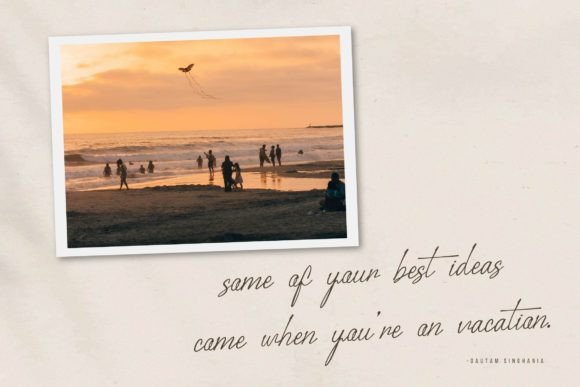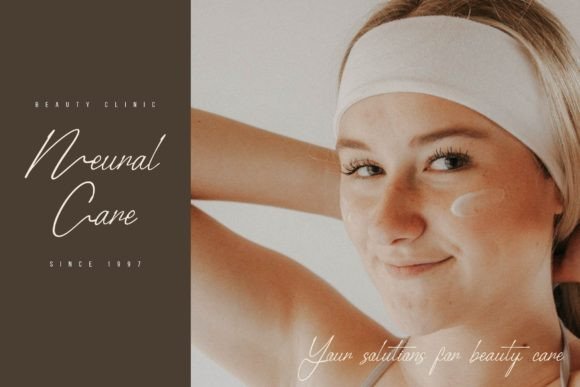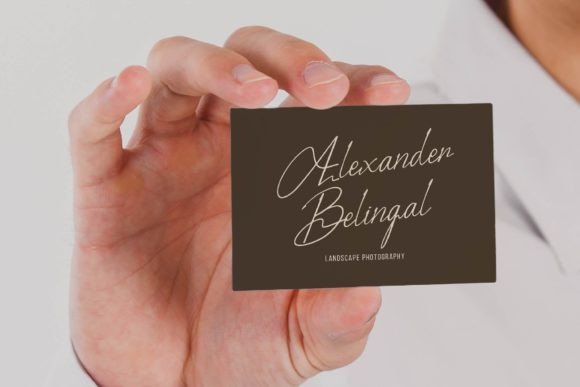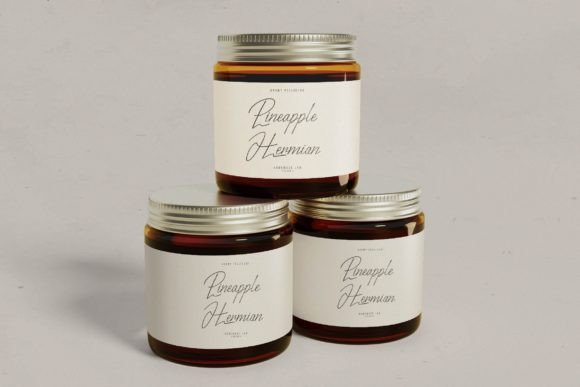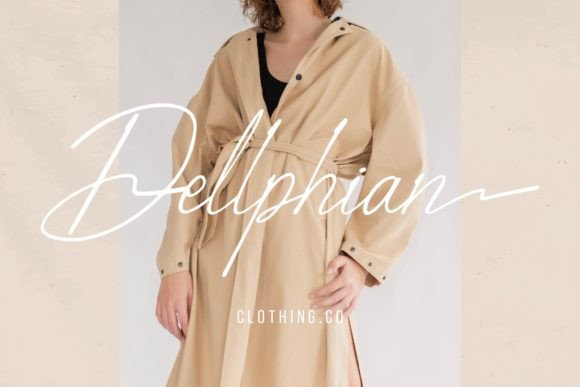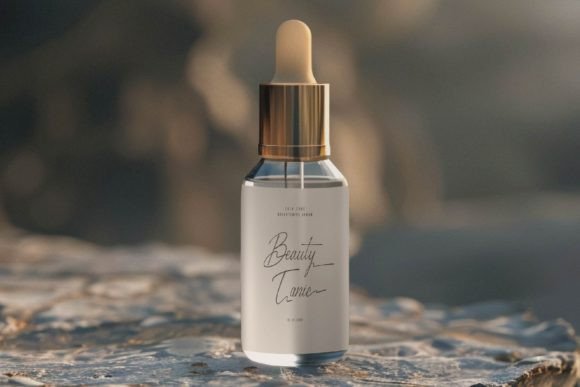
Discover the Charm of Gramy Pellicent Font: A Lovely Handwritten Style
Are you tired of using the same old fonts for your creative projects? Look no further than Gramy Pellicent, a beautiful handwritten font that exudes warmth and personality. With its smooth, flowing letters, this lovely font is perfect for adding a personal touch to notes, invitations, and more. In this article, we’ll dive into the world of Gramy Pellicent and explore its unique features, uses, and benefits for designers and crafters.
The Characteristics of Gramy Pellicent Font
Gramy Pellicent is a handwritten font that boasts a unique, organic feel. Its smooth, cursive letters are carefully crafted to give a friendly and inviting impression, making it ideal for projects that require a personal touch. The font’s flowing lines and curves create a sense of movement and fluidity, adding a touch of elegance to any design.
One of the standout features of Gramy Pellicent is its legibility. Even at smaller sizes, the font remains clear and easy to read, making it perfect for body text, captions, and other applications where readability is crucial. Additionally, the font’s gentle, rounded edges give it a soft, approachable feel that’s sure to resonate with your audience.
Uses for Gramy Pellicent Font
Gramy Pellicent is an incredibly versatile font that can be used in a wide range of creative projects. Here are just a few ideas to get you started:
- Invitations and Announcements: Add a personal touch to your wedding invitations, birthday announcements, or other special events with Gramy Pellicent.
- Notes and Letters: Use Gramy Pellicent to add a warm, handwritten feel to your letters, notes, and cards.
- Branding and Packaging: Incorporate Gramy Pellicent into your brand identity to create a friendly, approachable image.
- Digital and Print Media: Use Gramy Pellicent in your digital and print media, such as blog posts, social media graphics, and brochures.
Gramy Pellicent offers a range of benefits for designers and crafters, including:
- Unique and Creative: Gramy Pellicent offers a fresh, unique perspective on handwritten fonts, allowing you to stand out from the crowd.
- Easy to Read: The font’s legibility makes it perfect for body text and other applications where readability is crucial.
- Versatile: Gramy Pellicent can be used in a wide range of creative projects, from invitations and announcements to branding and packaging.
- Time-Saving: With Gramy Pellicent, you can create professional-looking designs without spending hours hand-lettering each piece.
Tips for Using Gramy Pellicent Font
To get the most out of Gramy Pellicent, here are a few tips to keep in mind:
- Pair with Other Fonts: Combine Gramy Pellicent with other fonts to create a unique and visually appealing design.
- Use in Combination with Images: Pair Gramy Pellicent with images or illustrations to create a striking and effective design.
In conclusion, Gramy Pellicent is a lovely handwritten font that offers a unique and creative way to add a personal touch to your designs. With its smooth, flowing letters and friendly feel, it’s perfect for a wide range of creative projects. Whether you’re a designer, crafter, or DIY enthusiast, Gramy Pellicent is sure to become a favorite in your font collection.